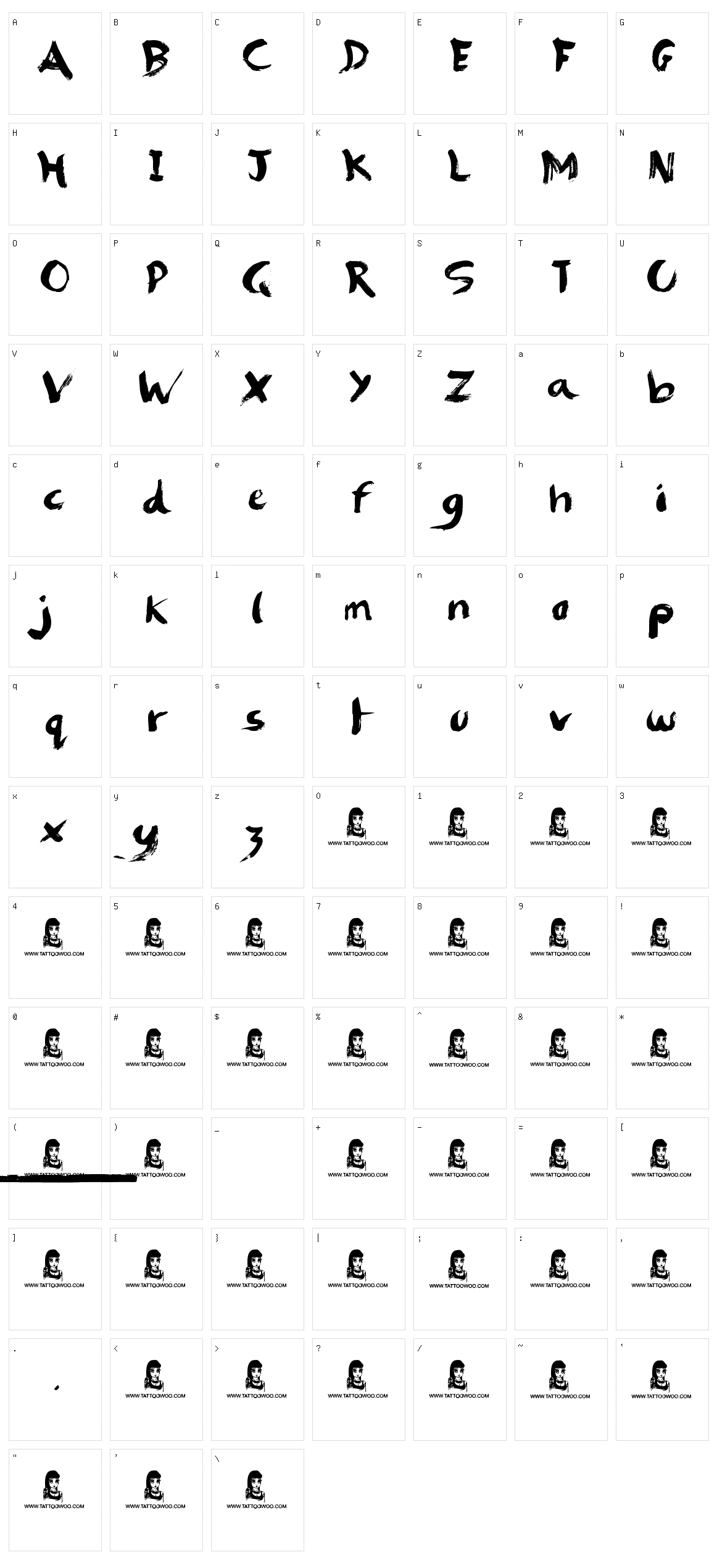
The free font Brush Strokes is carefully designed by JSH creates, showcasing a thoughtful balance of creativity and usability and falls under the Script font style. When you download the ZIP file, it contains only 45.97 KB of font files, making it lightweight and quick to download. Please review the license details below to understand permitted usage and distribution rights. If license information is not available, we recommend using this font for personal projects only or contacting the author directly for commercial usage permissions.